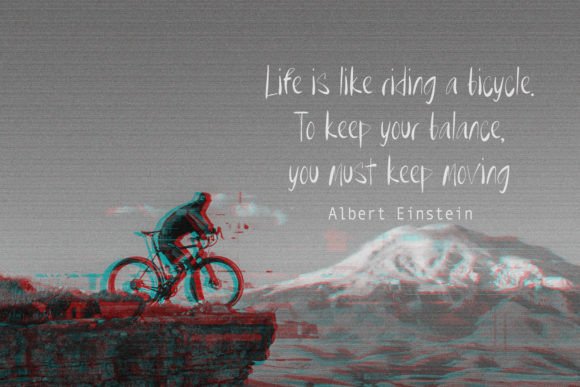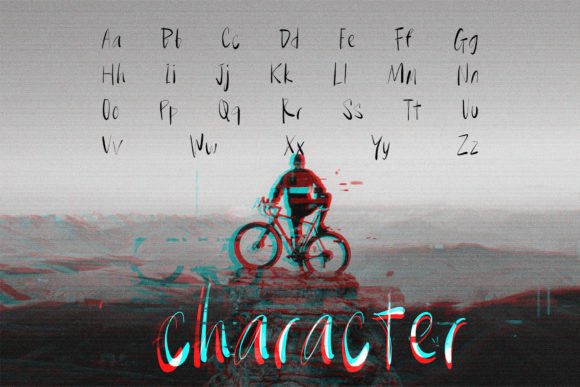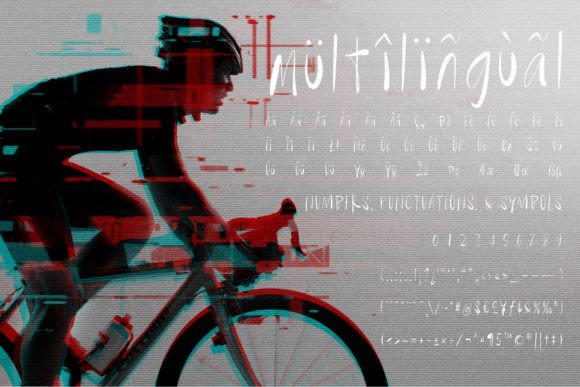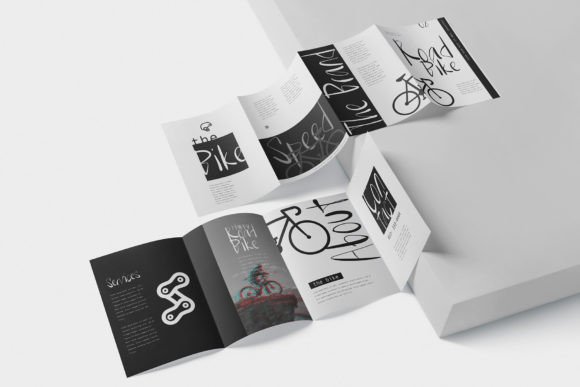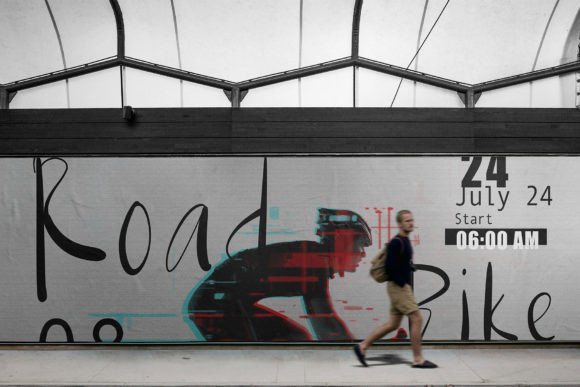
Introduction to Fast York Look Font
Fast York Look font is an ink handwritten typeface that showcases speed and dynamism in every stroke.
It is created with the intention of bringing a sense of quickness, energy, and spontaneity to letter designs The history behind the creation of this font begins with our admiration for the expressive movements and sharpness of ink when applied to a surface.
Key Features of Fast York Look Font
Why Choose Fast York Look Font?